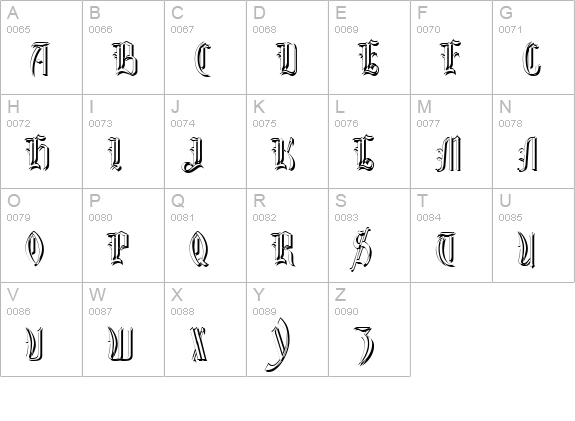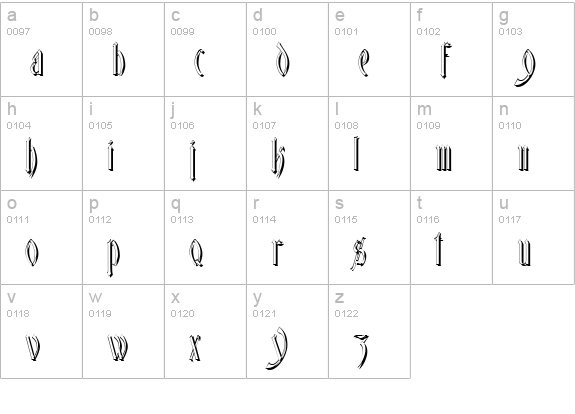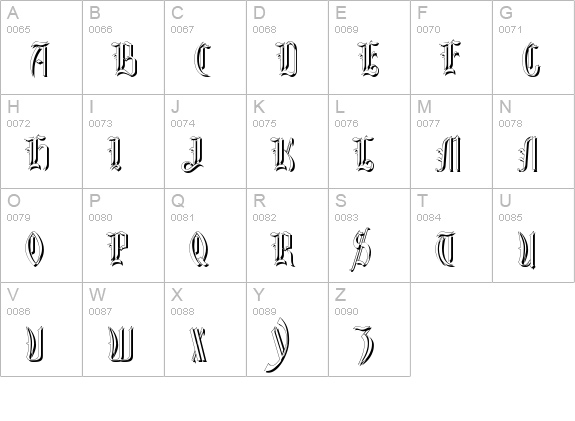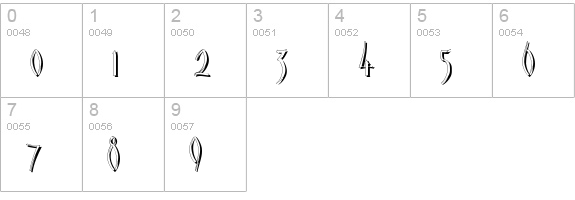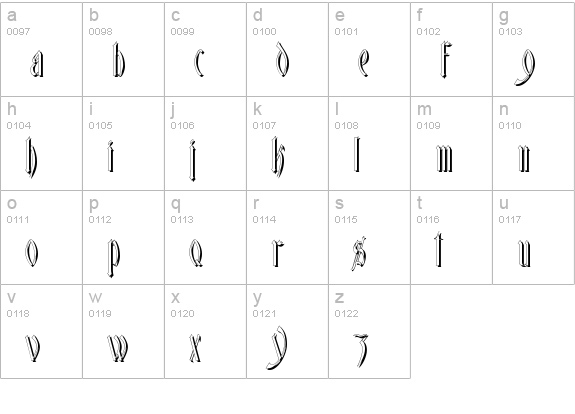
Glastonbury Shadow Font Details
Glastonbury Shadow font is a beautifully crafted typeface that exudes elegance and sophistication. With its delicate shadows and intricate details, this font is perfect for adding a touch of mystery and magic to any design project. The flowing curves and sharp edges of Glastonbury Shadow create a captivating visual effect that will make your text stand out. What makes Glastonbury Shadow even more appealing is that it is completely free to download at FontsMarket.com. This means that you can easily access this stunning font and use it in your personal and commercial projects without any cost. Whether you're designing a poster, logo, or website, Glastonbury Shadow is sure to elevate your work and leave a lasting impression on your audience. Download Glastonbury Shadow today from FontsMarket.com and unleash the power of this enchanting font in your designs.